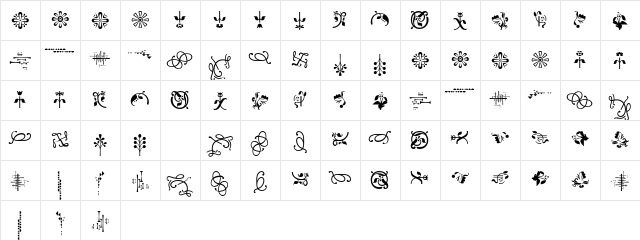
Odile Ornaments
Design Context for Odile Typeface
Odile brings ornamental detail and strong personality to headlines and identities, where visual impact matters more than quiet functionality.
Font Pairing: Pair with a clean neutral sans-serif for body copy to let Odile's character lead without overwhelming the composition.
Pro Tip: Treat Odile as the centrepiece of your typographic hierarchy. One strong heading set in a decorative face can carry an entire layout.